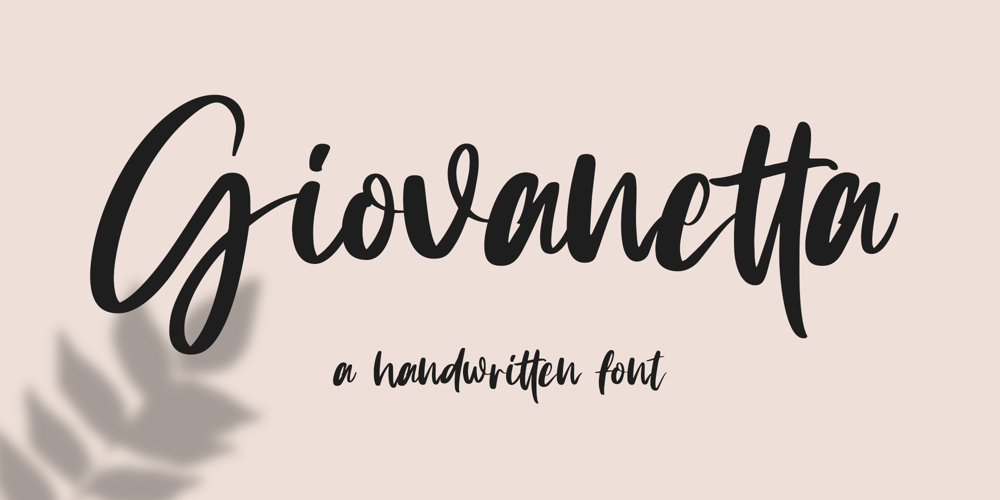
Giovanetta Script Font Family was designed by Randi Ilhamsyah and published by VzType. Giovanetta Script contains 1 styles and family package options. Giovanetta is a natural handwritten font. This font is perfect for logos, invitations, stationery, wedding designs, social media posts, advertisements, product packaging, product designs, label, photography, watermark, special events, and more.Giovanetta Script comes with a full set of uppercase and lowercase letters, multilingual symbols, numerals, punctuation.